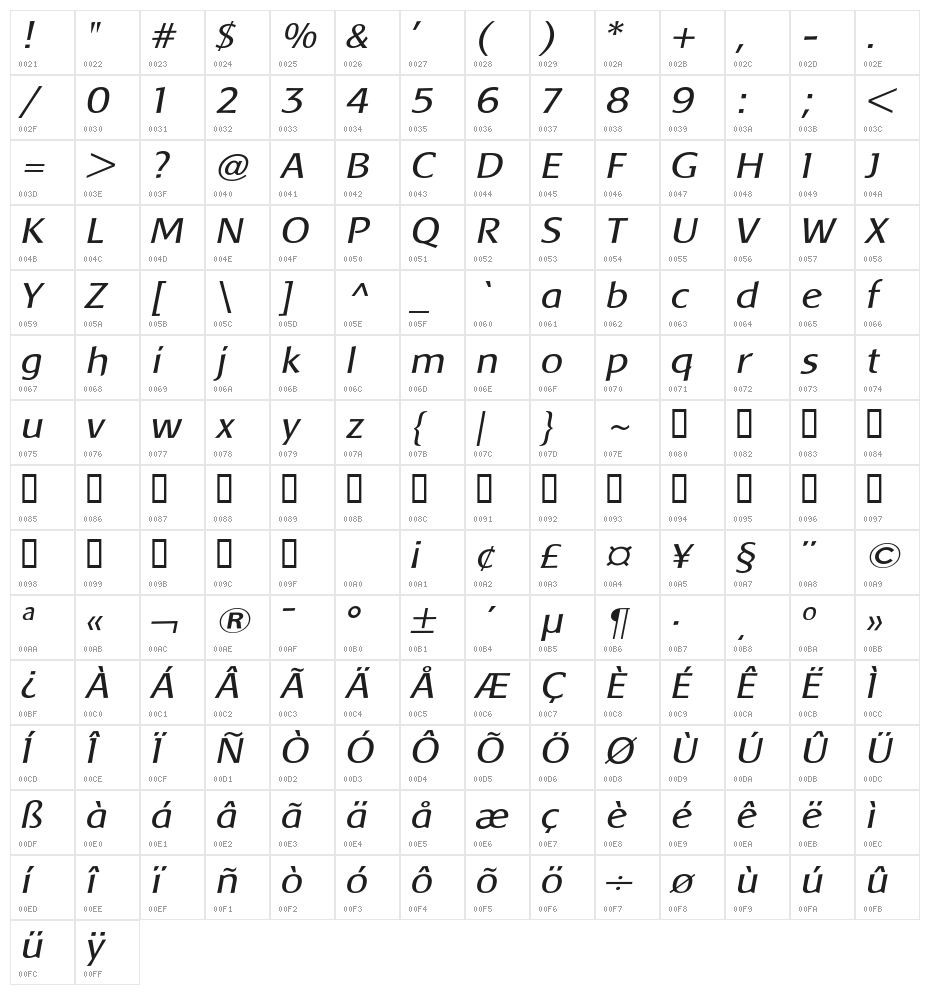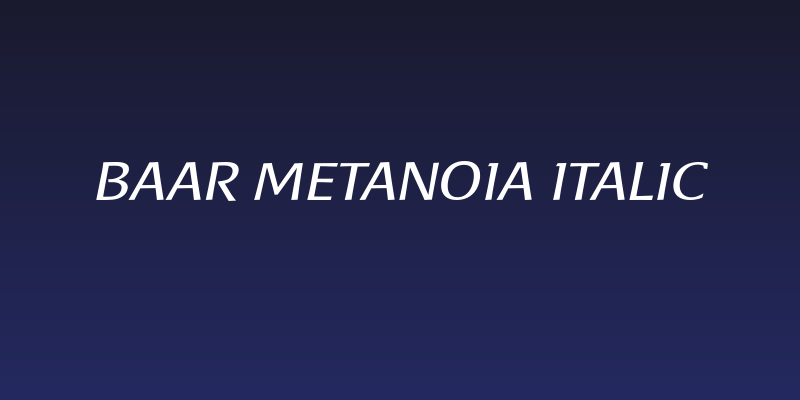
Baar Metanoia Italic Font
Baar Metanoia Italic Description
This font features a sleek and modern italic style with a slight forward slant, giving it a dynamic and elegant appearance. The characters are well-proportioned, with smooth curves and clean lines that enhance readability. The uppercase letters are bold and commanding, while the lowercase letters maintain a consistent flow, making it suitable for both headlines and body text. The numerals are clear and distinct, ensuring easy legibility. Special characters are thoughtfully designed to match the overall aesthetic, providing versatility for various design needs.
| Proposed Projects | Ideal for branding, editorial design, advertising, and digital media projects. |